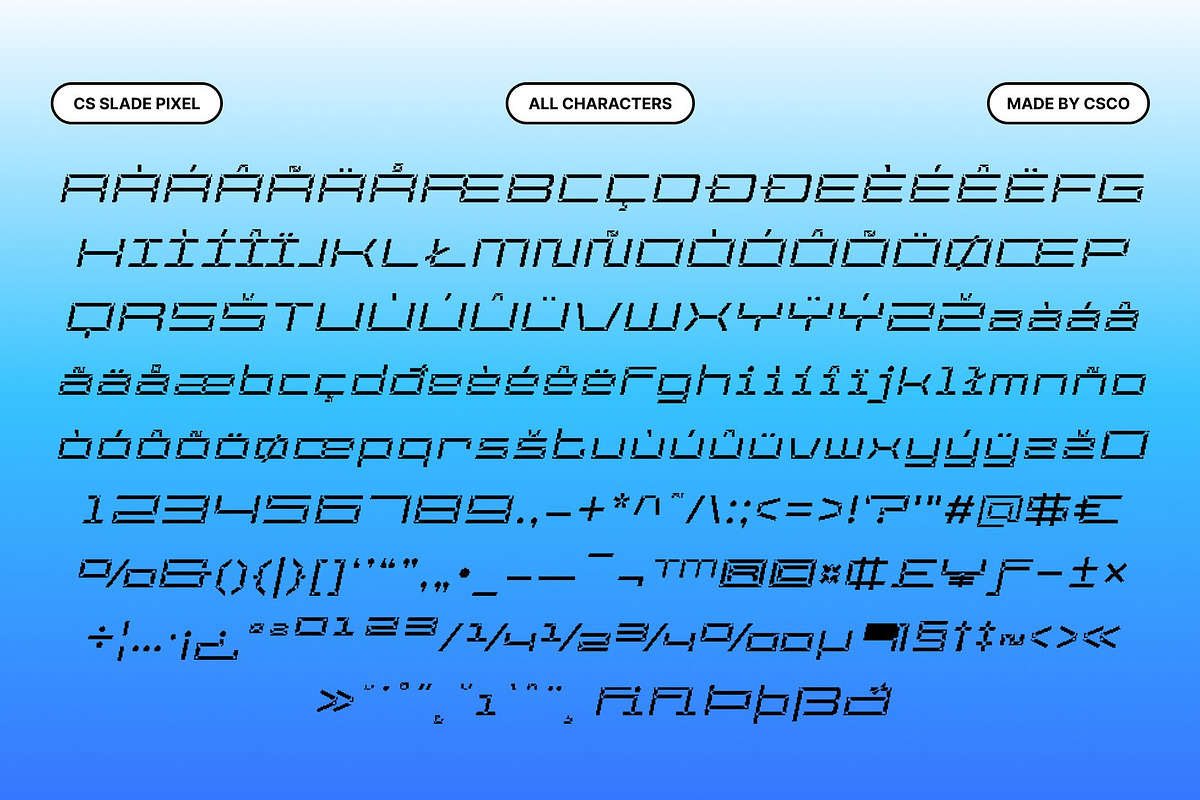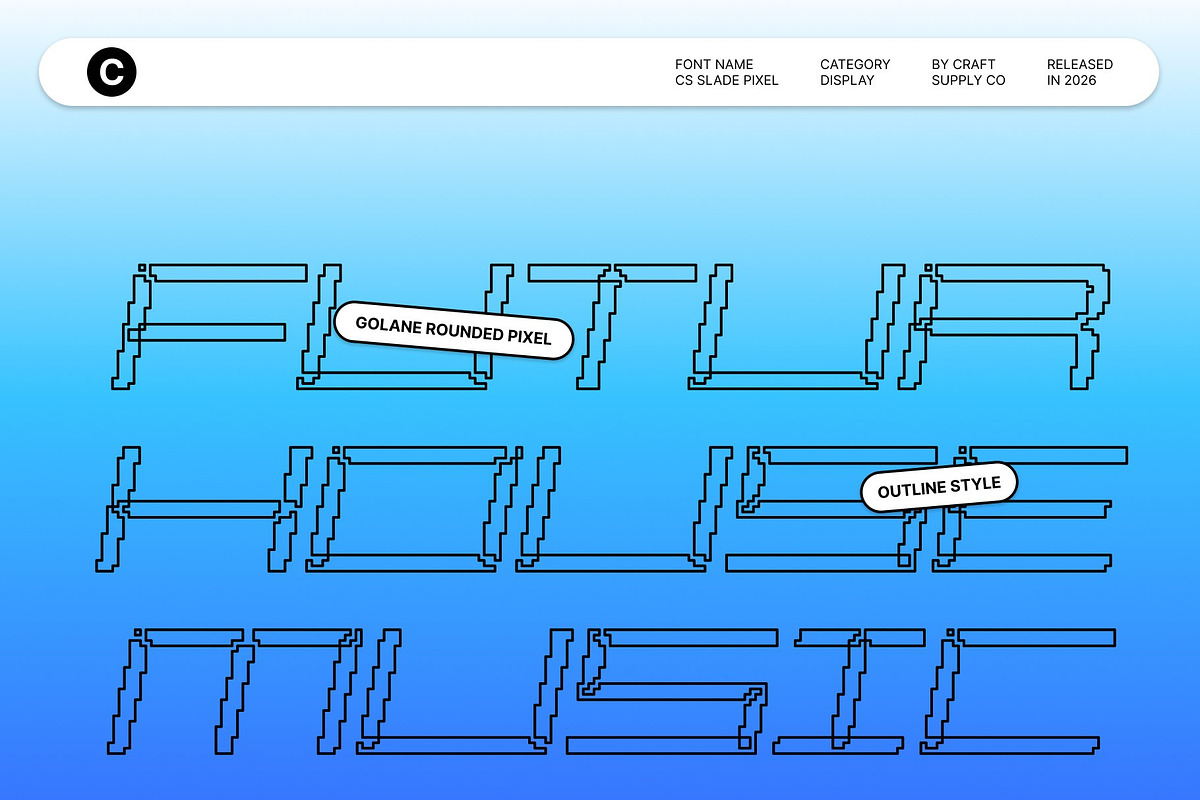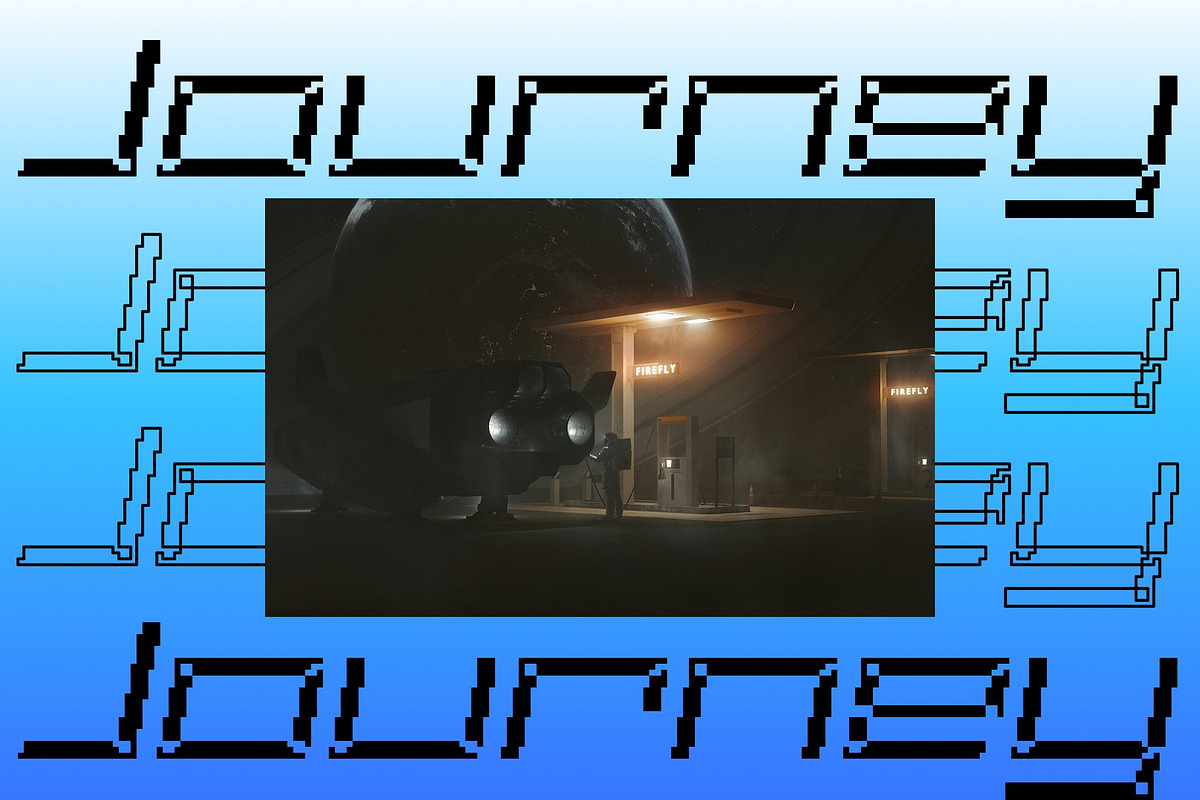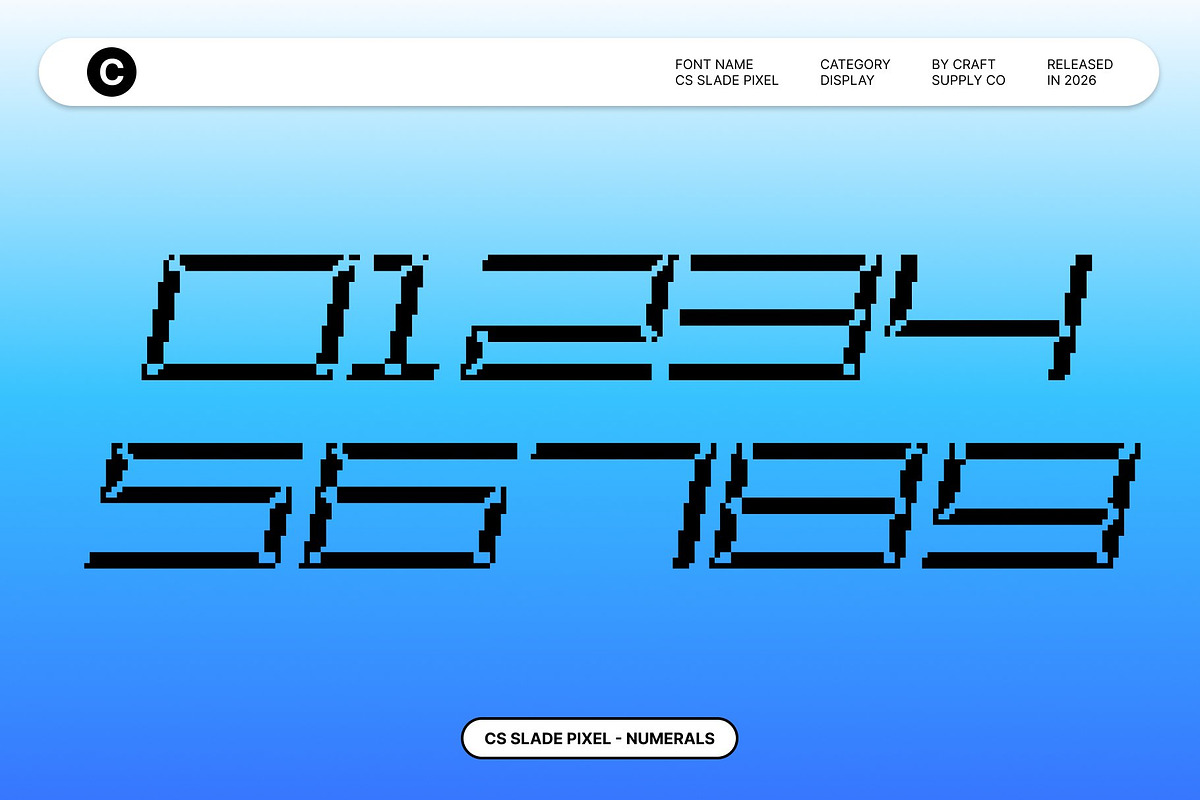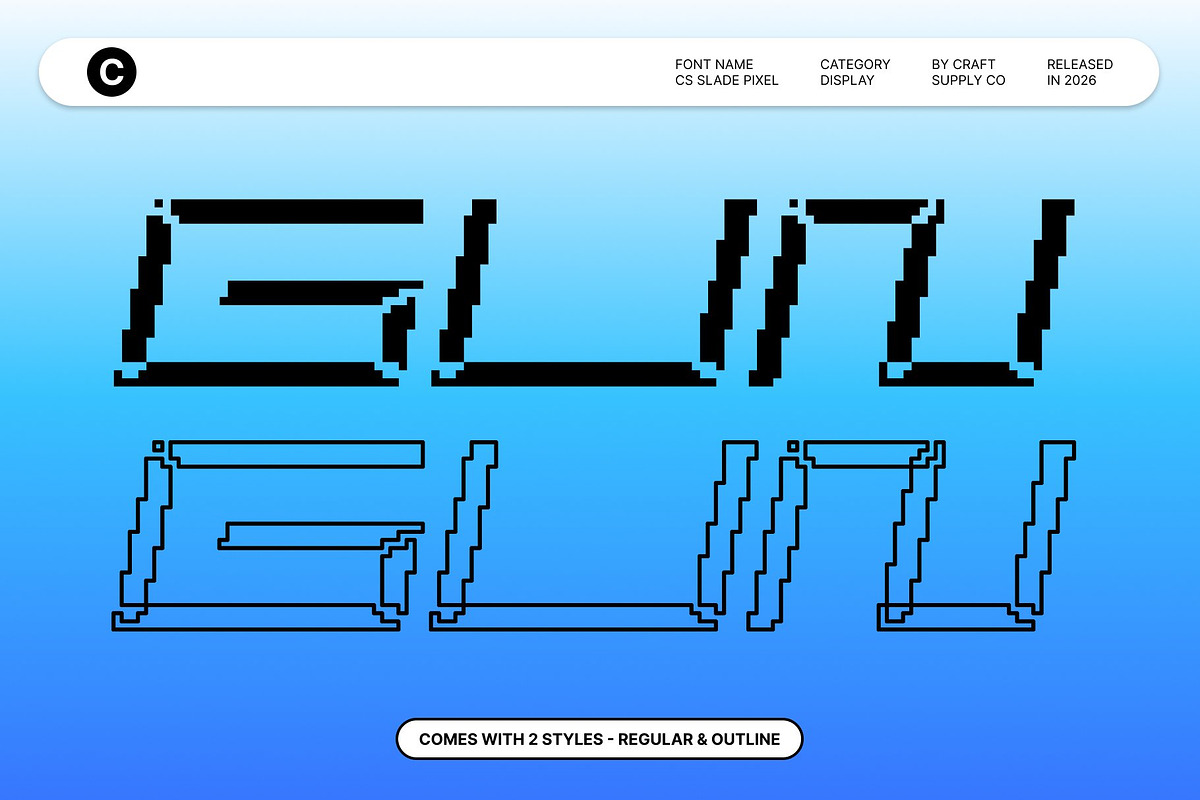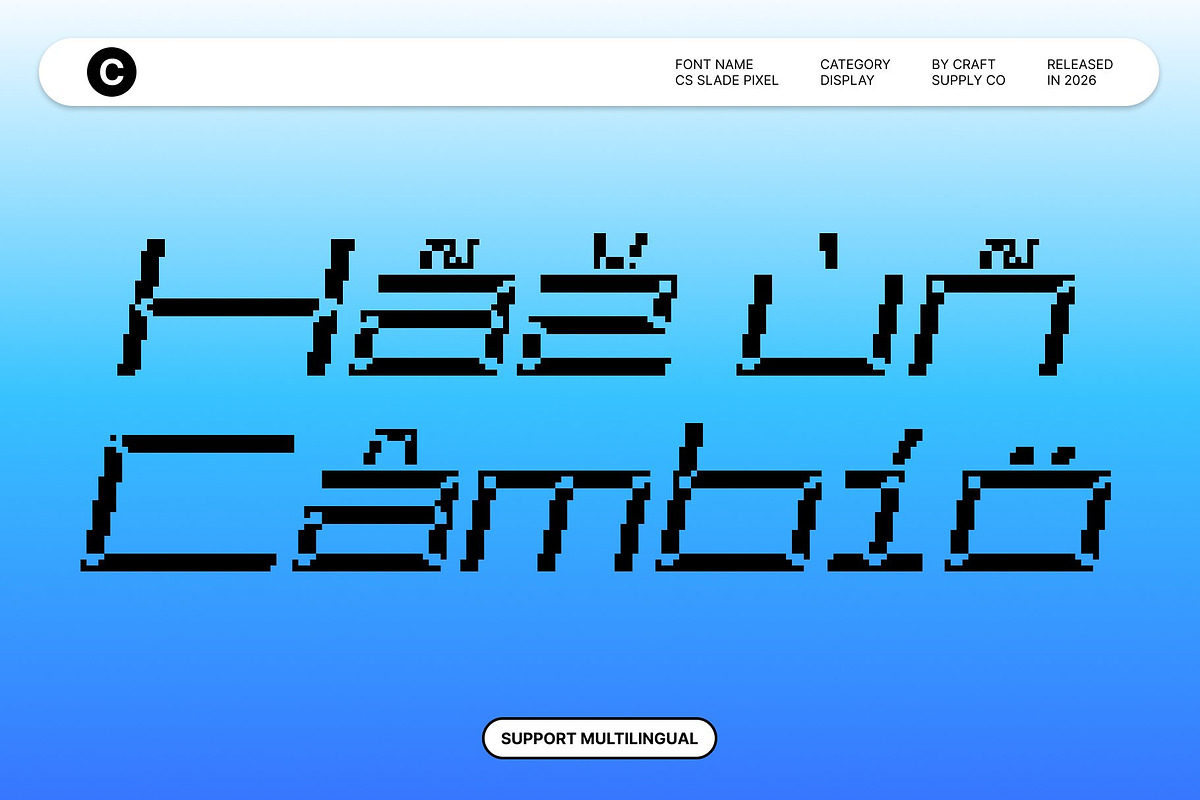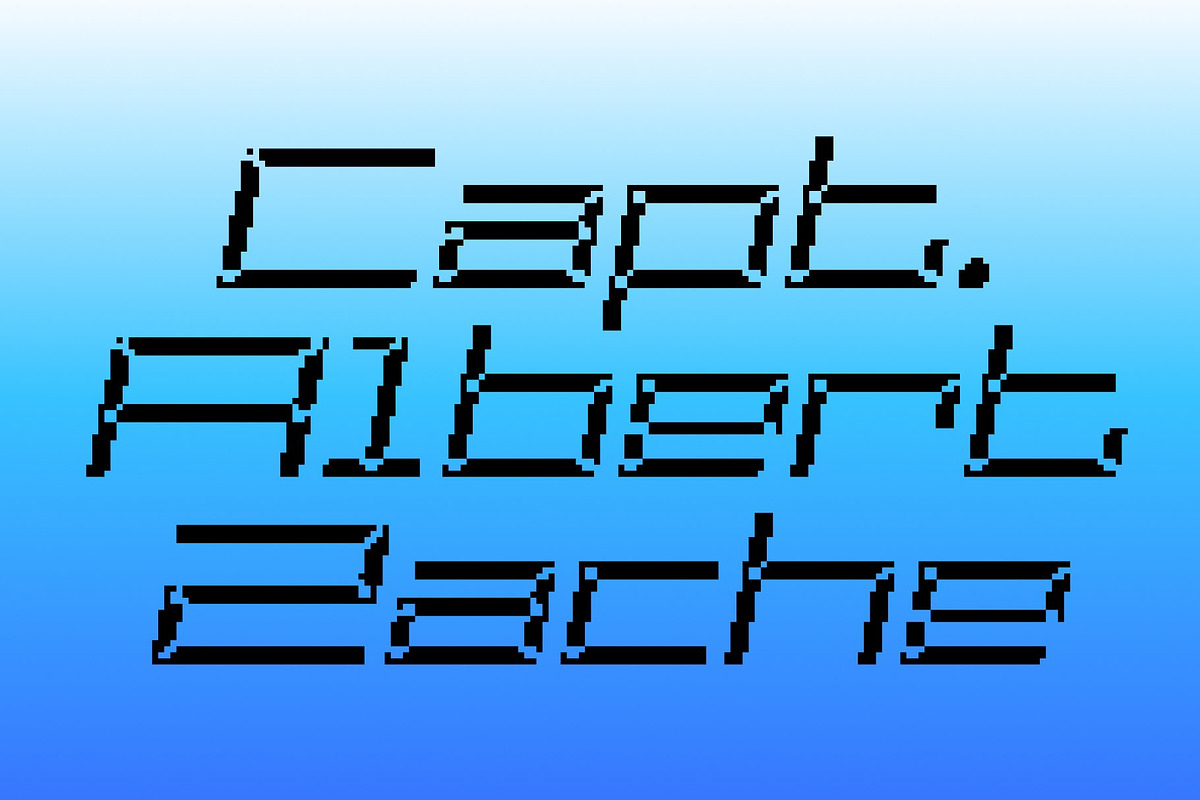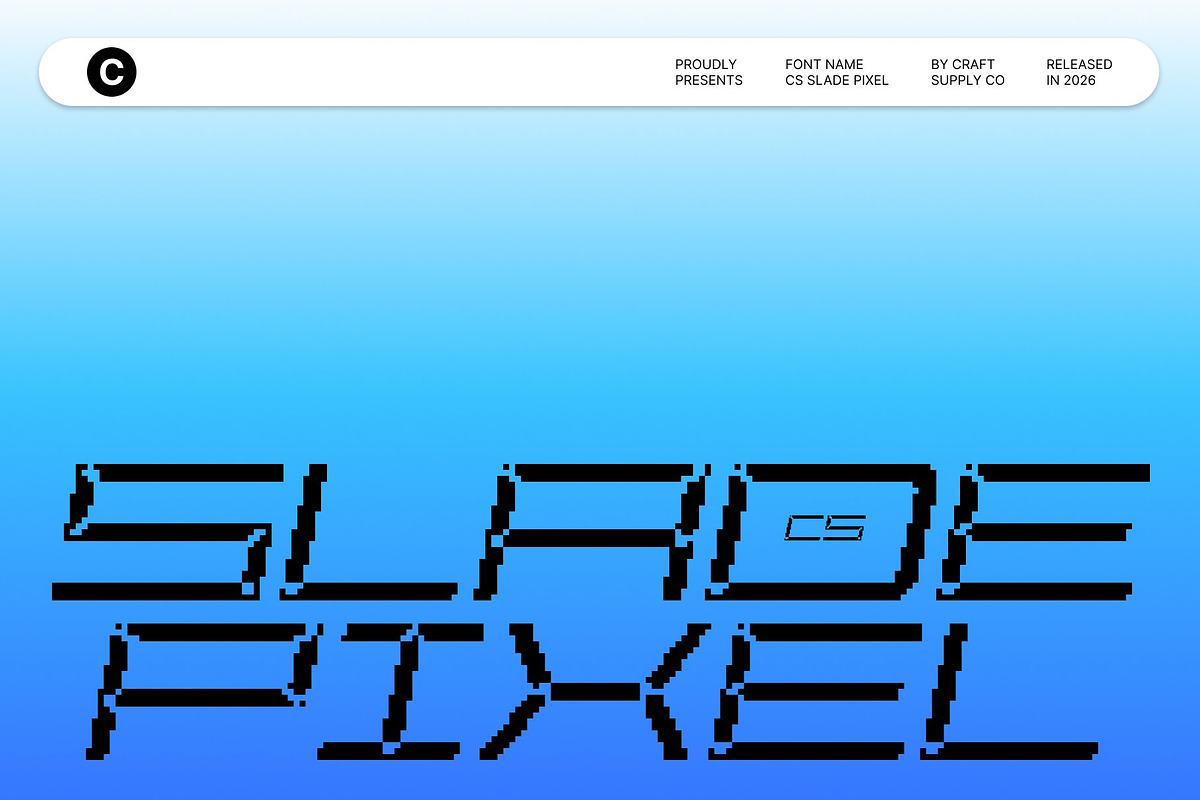
CS Slade Pixel
CS Slade Pixel – Inktrap Sans Serif: Where Modern Precision Meets Digital Intrigue Confident Modernity with Distinctive Detail This is a modern sans-serif font that combines bold contemporary structure with expressive inktrap detailing. Designed with wide proportions and clean geometry, this typeface delivers strong visual presence while introducing subtle pixel-inspired character that elevates its modern appeal.
Clean Sans Serif with Pixel-Edge Precision Built on a sleek sans-serif foundation, this font offers clarity, strength, and sophistication. Its minimalist form ensures a modern look, while refined pixel and inktrap accents add depth and personality creating a font that feels technical, confident, and visually engaging.
Intriguing Inktrap Details for Character The inktrap details enhance corners and junctions, adding a layer of visual intrigue to each letterform. These details not only improve clarity at large sizes but also give the font a distinctive identity that stands out in branding, headlines, and digital interfaces.
Perfect for Modern Branding and Digital Design This font excels in tech branding, editorial headlines, posters, and futuristic visual systems. Its combination of clean structure, inktrap detailing, and pixel-influenced precision makes it a powerful choice for designs that demand modern authority with a touch of intrigue.